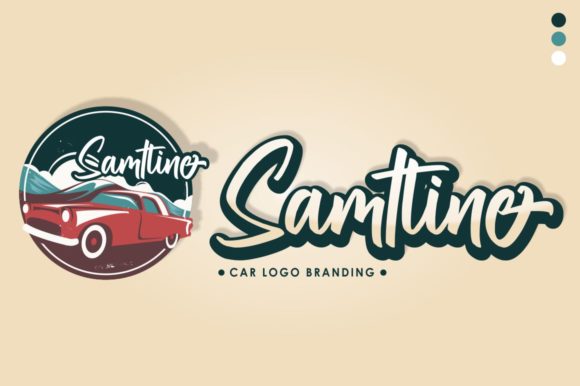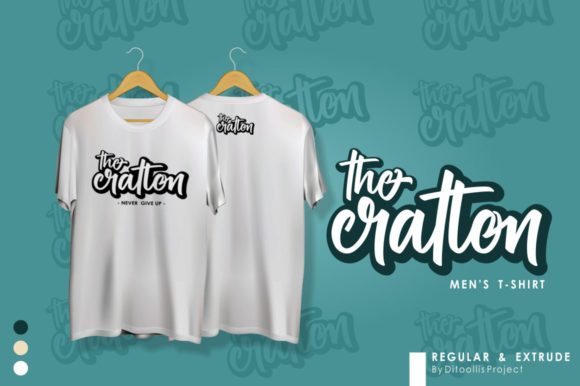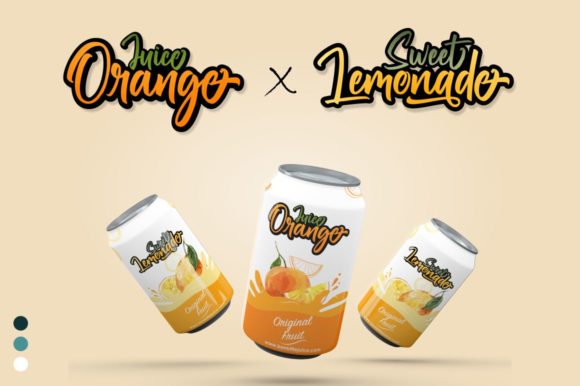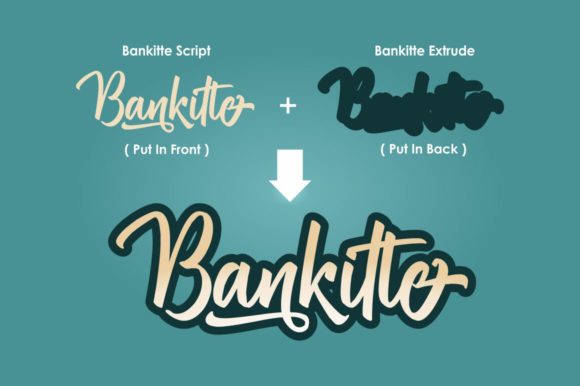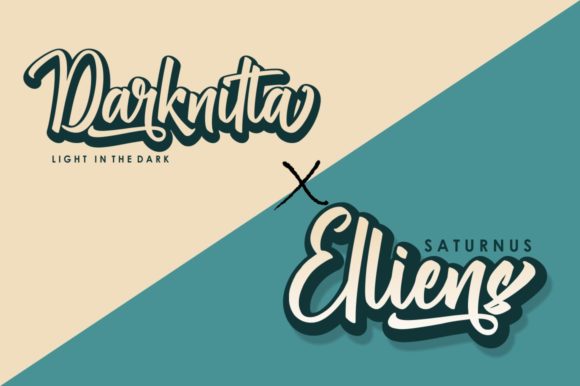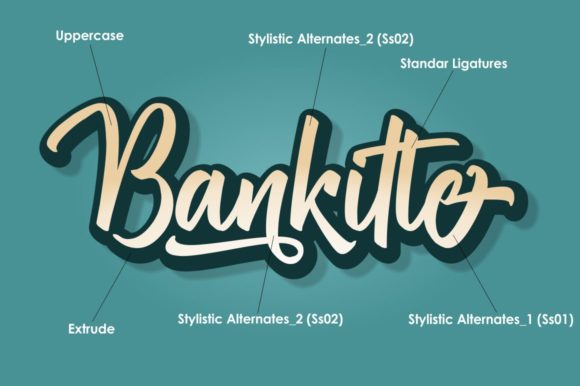
Introducing Bankitte Font: The Playful and Dynamic Script Font for Creative Projects
Are you a designer or crafter looking for a font that can add a touch of playfulness and dynamism to your creative projects? Look no further than Bankitte Font! This exciting script font is perfect for a wide range of applications, from invitations and logos to business cards, covers, and even quotes. In this article, we’ll take a closer look at Bankitte Font and explore its features, benefits, and uses.
What is Bankitte Font?
Bankitte Font is a modern script font that is designed to bring a sense of fun and energy to your designs. Its playful and dynamic style makes it perfect for creative projects that require a personal touch. The font features beautiful, flowing lines and a unique character set that is sure to capture the attention of your audience.
Key Features of Bankitte Font
- Playful and Dynamic Style: Bankitte Font has a unique and energetic style that is perfect for creative projects.
- Script Font: The font features beautiful, flowing lines that give it a script-like feel.
- Unique Character Set: Bankitte Font has a distinctive character set that sets it apart from other fonts.
- Highly Versatile: The font is suitable for a wide range of applications, from invitations and logos to business cards and quotes.
Benefits of Using Bankitte Font
So why should you choose Bankitte Font for your creative projects? Here are just a few benefits of using this exciting font:
- Adds a Personal Touch: Bankitte Font’s playful and dynamic style adds a personal touch to your designs, making them more engaging and memorable.
- Perfect for Creative Projects: The font is highly versatile and can be used for a wide range of creative projects, from invitations and logos to business cards and quotes.
- Easy to Read: Despite its playful style, Bankitte Font is easy to read, making it perfect for use in body text as well as headlines.
- Unique and Eye-Catching: The font’s unique character set and flowing lines make it stand out from other fonts, adding a touch of elegance and sophistication to your designs.
Uses of Bankitte Font
So what can you use Bankitte Font for? The possibilities are endless! Here are just a few ideas to get you started:
- Invitations: Use Bankitte Font to create beautiful and unique invitations for weddings, parties, and other special events.
- Logos: The font’s playful and dynamic style makes it perfect for use in logos and branding materials.
- Business Cards: Add a touch of personality to your business cards with Bankitte Font.
- Covers: Use the font to create eye-catching covers for books, magazines, and other publications.
- Quotes: Bankitte Font is perfect for use in quotes and other inspirational materials.
- T-Shirts and Apparel: The font’s unique style makes it perfect for use on t-shirts and other apparel.
Tips for Using Bankitte Font
Here are a few tips for getting the most out of Bankitte Font:
- Use it Sparingly: While Bankitte Font is perfect for adding a touch of personality to your designs, it’s best to use it sparingly. Use it for headlines or titles, and a more traditional font for body text.
- Experiment with Colors: The font’s playful style makes it perfect for use with bright and bold colors. Experiment with different color schemes to find the one that works best for your design.
- Pair it with Other Fonts: Bankitte Font can be paired with a wide range of other fonts to create a unique and eye-catching design. Experiment with different font combinations to find the one that works best for your project.
| Font Name | Bankitte Font |
| Author | Ditoollis Project |
In conclusion, Bankitte Font is a playful and dynamic script font that is perfect for creative projects. Its unique character set, flowing lines, and highly versatile style make it suitable for a wide range of applications, from invitations and logos to business cards and quotes. With its ease of use, beautiful design, and endless possibilities, Bankitte Font is a must-have for designers and crafters looking to add a touch of personality to their creations.